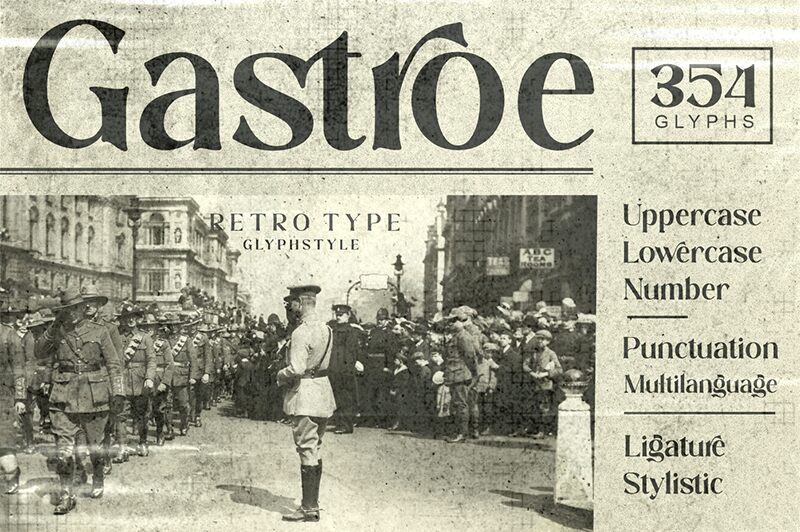
Gastroe font by Glyphstyle is a retro serif display font that delivers an elegant, classic, and professional style. Its traditional and sophisticated look contributes to a timeless appearance that remains both inviting and versatile. The font is legible and easily distinguishable from other typefaces thanks to its prominent serifs.
Free and stylish, the font can be used for online platforms as well as printed projects. Let it take over your business with titles for magazines or newspapers, signage designs, branding designs including logotypes or business cards, menus display for restaurants or cafes, etc. Gastroe can also bring its shine to digital decor elements used on websites or in ads.